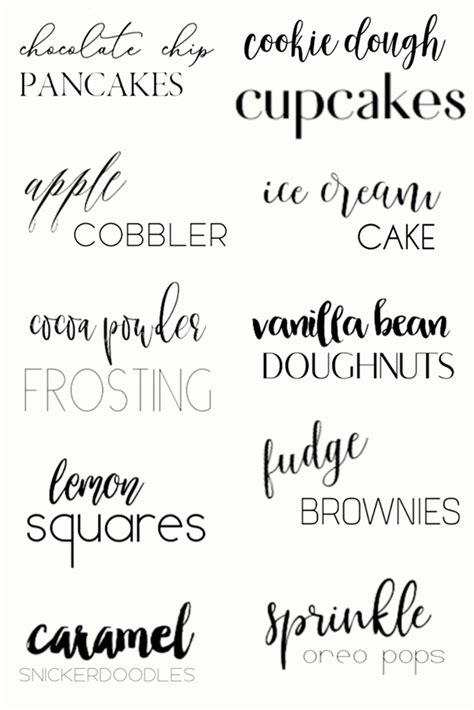
Using Mixed Fonts To Create Visual Interest
In a world of ever-growing competition, it's important for businesses to stand out from the crowd. One way to do this is by creating a memorable and eye-catching visual identity. And one way to create a strong visual identity is to use mixed fonts. By combining multiple fonts, you can create visual interest that will make your brand stand out.
What are Mixed Fonts?
Mixed fonts are fonts that are used together in a design. They can be used to create a cohesive look or to add visual interest. When used correctly, mixed fonts can create a look that is both modern and timeless. They can also help to add a unique touch to any design.
Why Choose Mixed Fonts?
Mixed fonts can be a great way to make your design stand out from the crowd. By combining two or more different fonts, you can create a unique look that will draw people in. Mixed fonts also allow you to create a sense of balance and visual hierarchy, which can be important for creating a cohesive design. Additionally, using mixed fonts can help to create a sense of visual interest, which can help your design stand out from the competition.
How to Choose the Right Fonts
When selecting fonts for a design, it's important to choose fonts that complement each other. Consider the mood of the design and the message that you want to convey. You should also consider the style of the font, such as serif or sans serif, and the size of the font. You should also think about the amount of contrast between the fonts. For example, if you're using two serif fonts, you may want to choose one that is bold and one that is light.
Using Mixed Fonts in Design
Once you've chosen the right fonts for your design, you can start to combine them. Consider using one font for headlines and another for body text. Or, use different fonts for different elements, such as menus, buttons, and titles. You can also use mixed fonts to create interesting visual effects. For example, you could use one font for the background and another for the text, or use two fonts in the same color to create a subtle effect.
Mixed fonts can be a great way to create a unique and eye-catching design. By combining two or more different fonts, you can create a memorable visual identity that will help your business stand out from the competition. Just be sure to choose fonts that complement each other and create a sense of balance and visual hierarchy. With the right mixed fonts, you can create a design that will make your brand stand out.